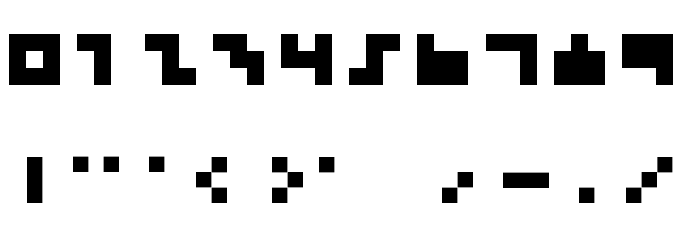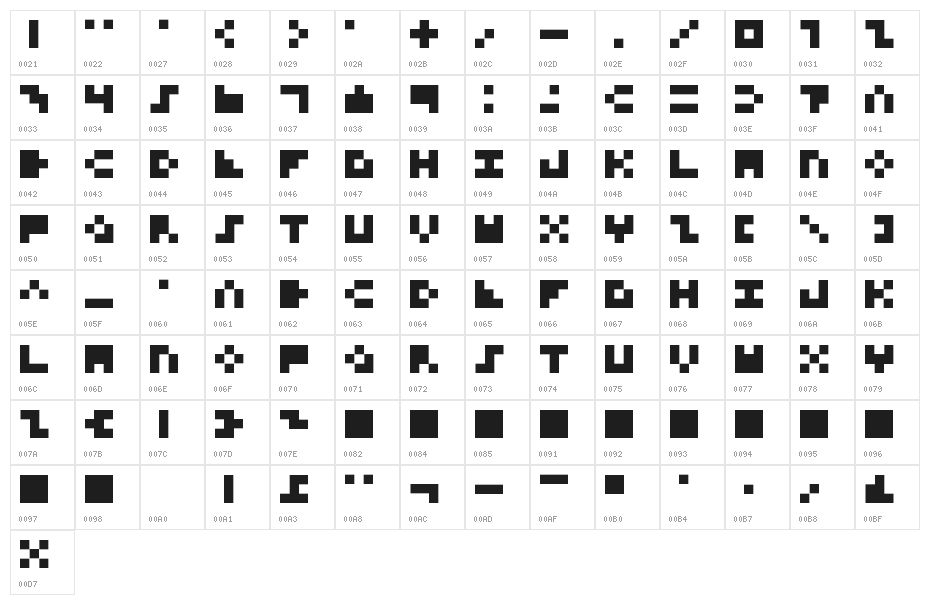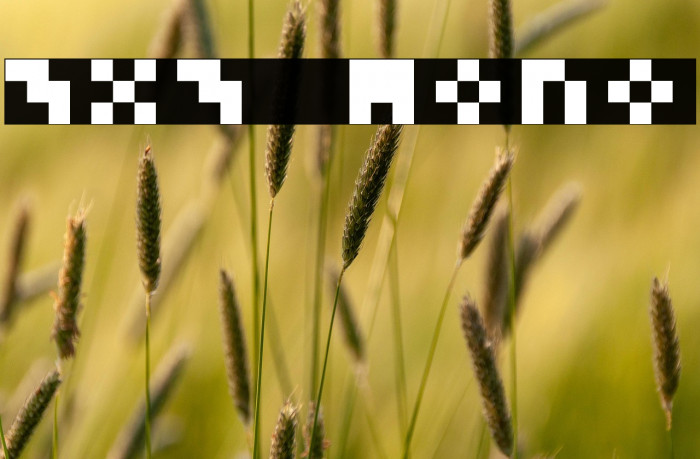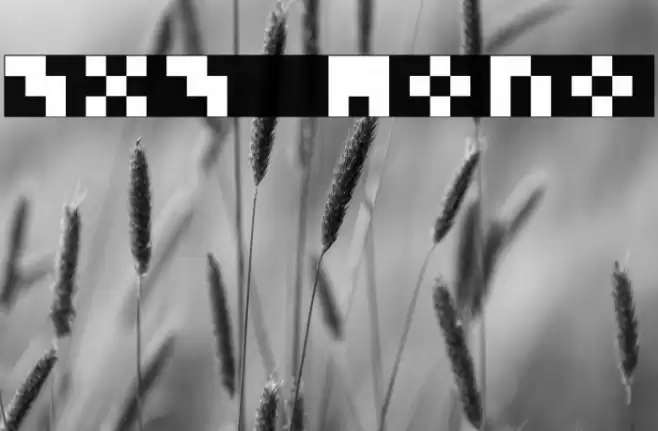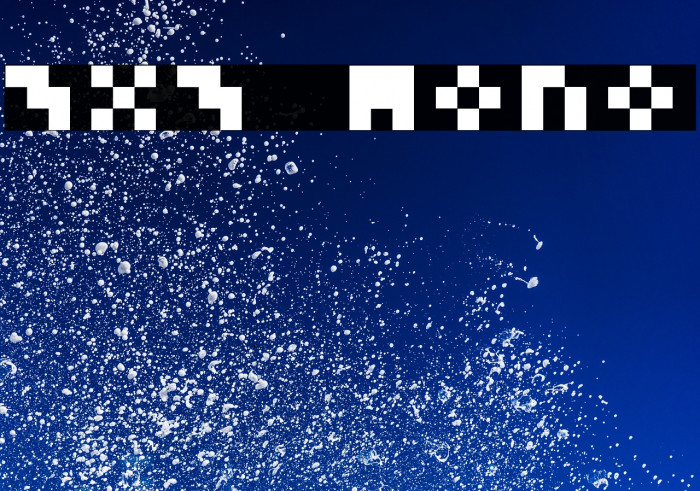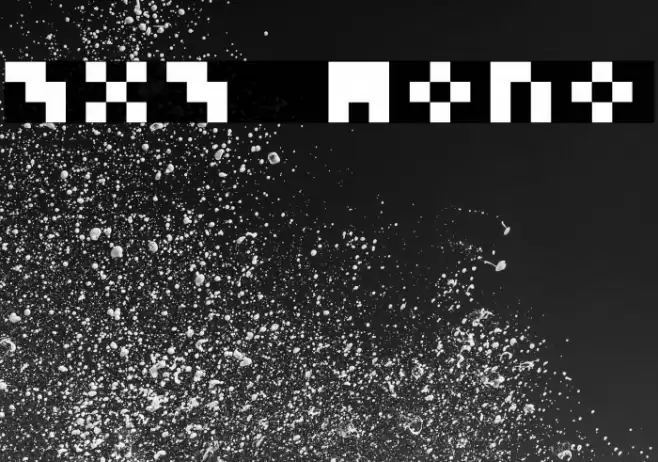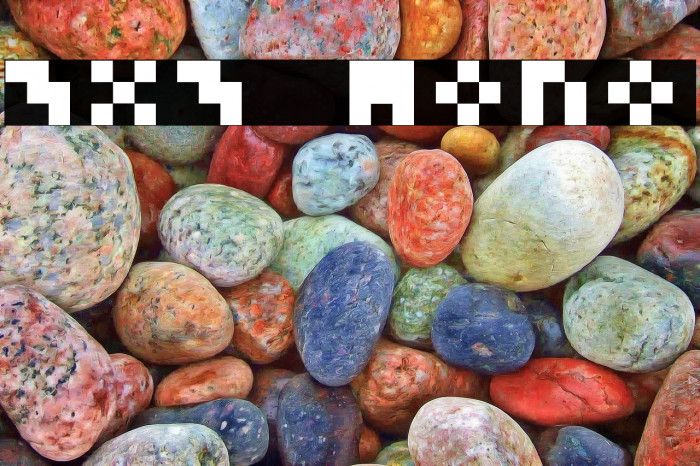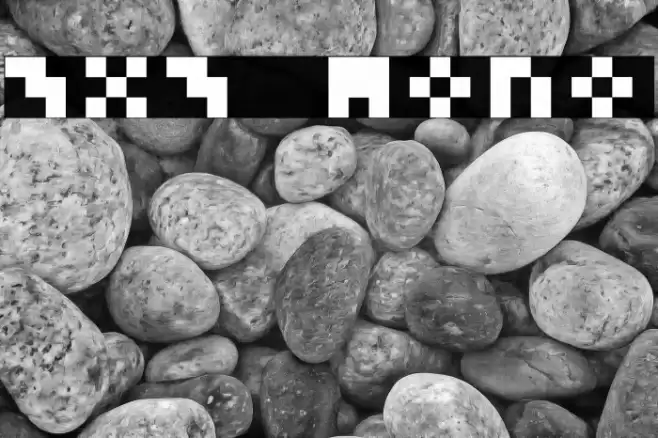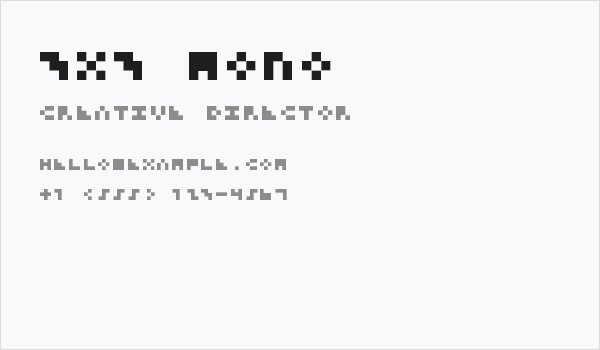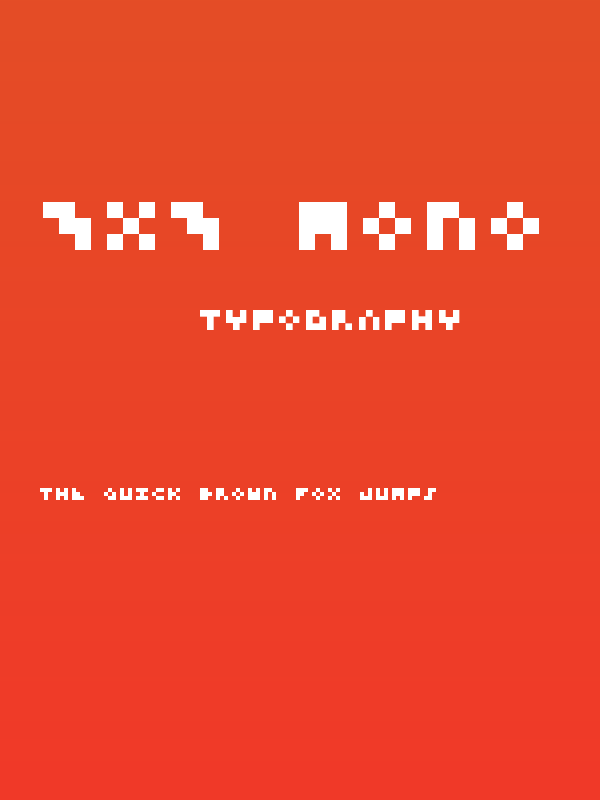
3x3 Mono Font
3x3 Mono Description
This font is a pixelated, monospaced typeface that embodies a retro, digital aesthetic reminiscent of early computer graphics and video games. Each character is constructed using a grid of blocks, creating a uniform and structured appearance. The font's design is highly geometric, with each letter and number fitting into a consistent square shape, making it ideal for digital displays and low-resolution screens. The simplicity and clarity of the characters ensure readability, while the blocky style adds a playful and nostalgic touch. This font is particularly suitable for projects that aim to evoke a sense of nostalgia or to create a digital, tech-inspired look.
| Use Case | Headlines, Logos, Digital displays |
| Proposed Projects | Ideal for video game design, digital art projects, retro-themed graphics, and tech-inspired branding. |